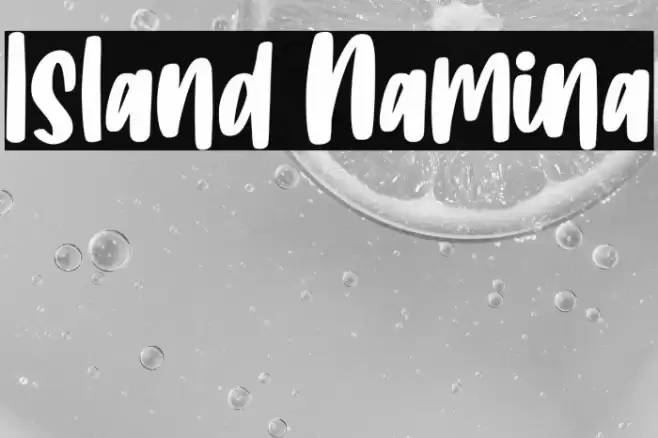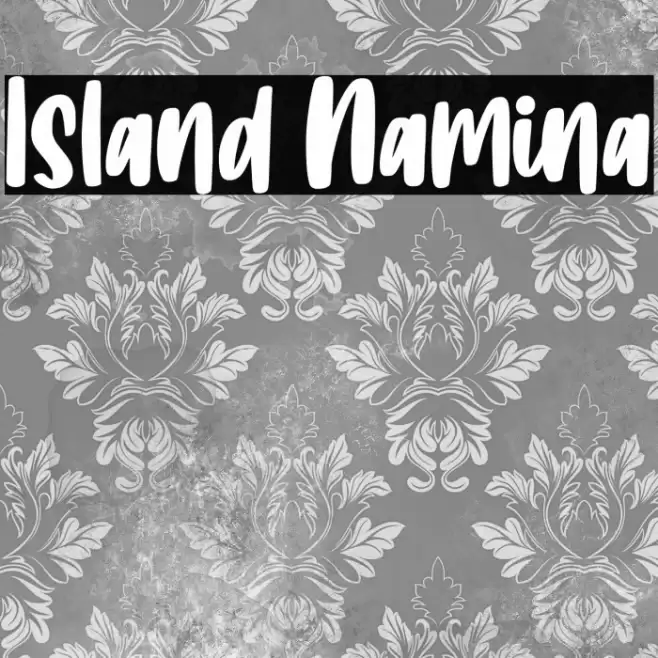
Island Namina Font
Island Namina Description
This font features a bold, handwritten style with a playful and energetic feel. The letters are thick and rounded, giving a sense of warmth and approachability. Each character flows smoothly into the next, creating a cohesive and dynamic look. The uppercase and lowercase letters maintain a consistent style, with slight variations that add to the font's charm. The numbers and special characters are equally bold and expressive, fitting seamlessly with the overall design. This font is ideal for projects that require a personal touch, such as invitations, greeting cards, or branding materials that aim to convey friendliness and creativity.
A bold, handwritten font with a playful and energetic style from Regular fonts.
- Proposed Projects: Ideal for invitations, greeting cards, branding materials, and creative projects.
- Overall Style: Playful, Energetic, Friendly
- Use Case: Headlines, Logos, Invitations